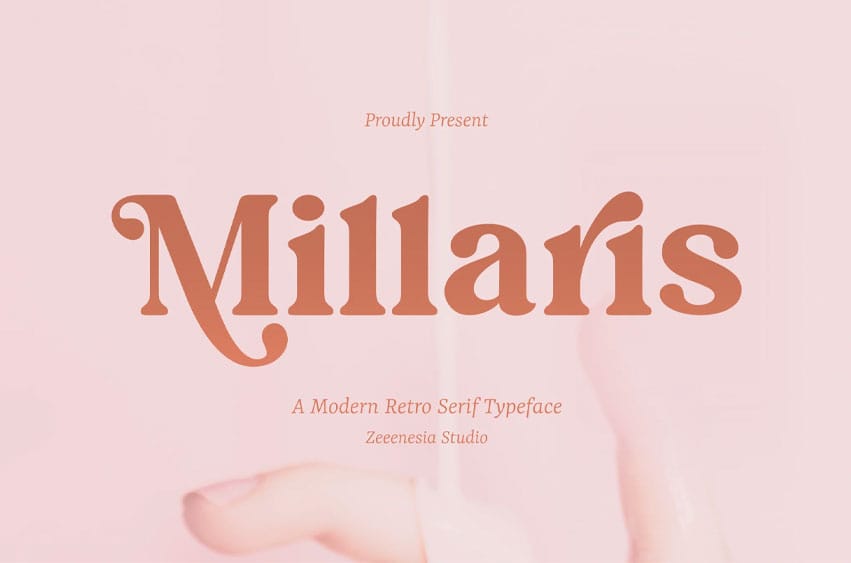
Millaris Font is a modern retro serif typeface that offers great versatility, making it ideal for large applications. It’s well-suited for advertising, branding, logotypes, packaging, titles, headlines, and editorial design.
Created several alternate variants and added natural ligatures to enhance its elegance and beauty. Bright Almond includes OpenType features, ensuring that your projects will achieve a polished and professional look.